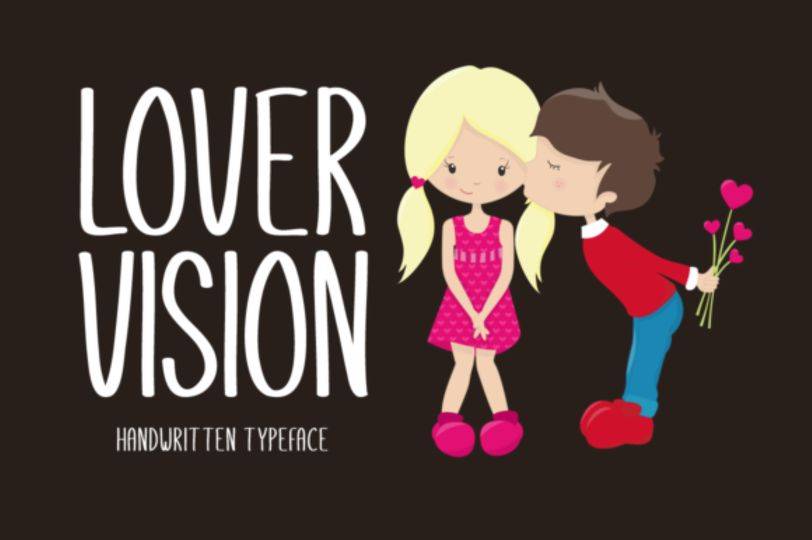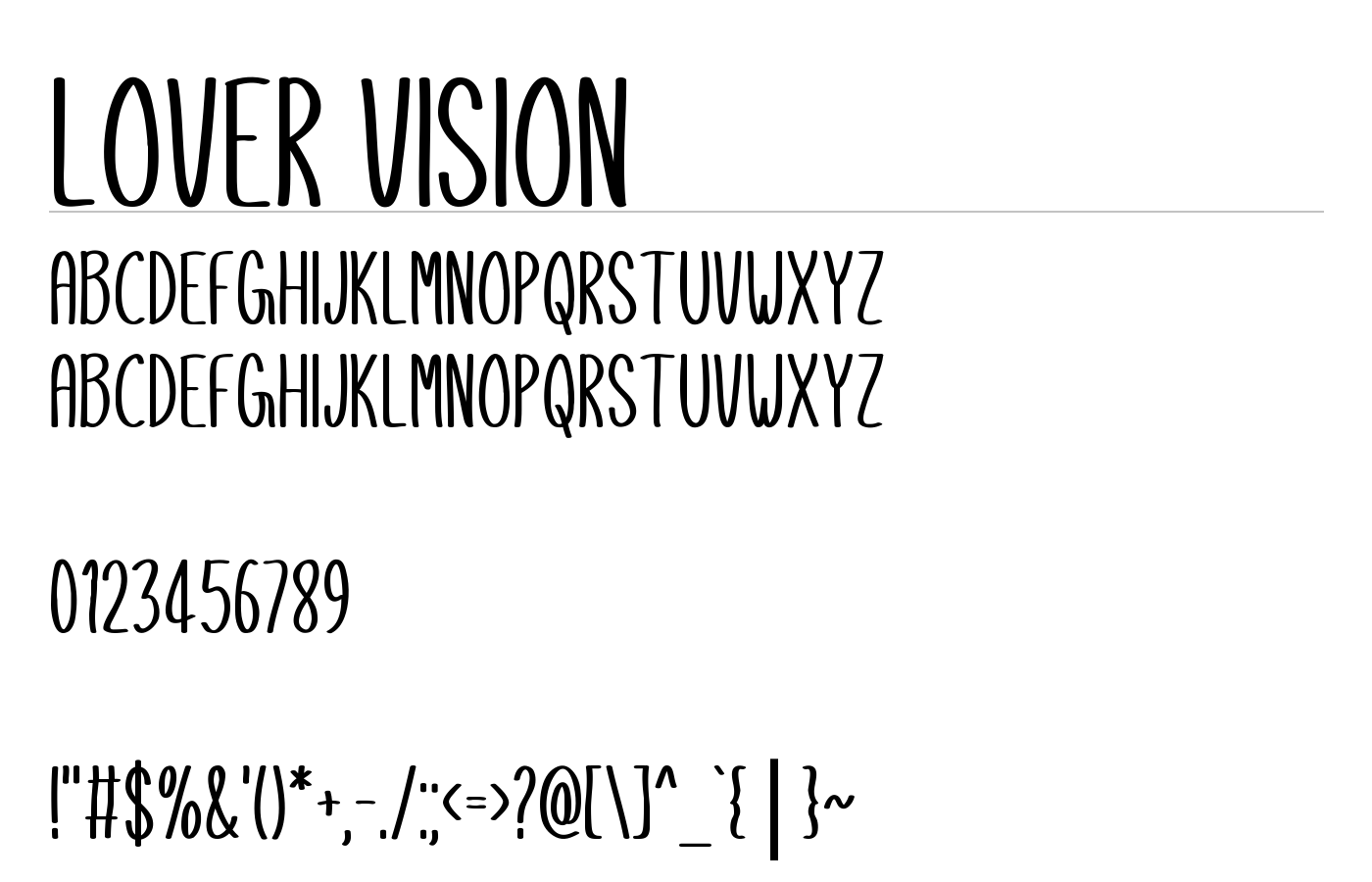
Lover Vision is a narrow, tall sans serif font with a playful and casual feel, characterized by its hand-drawn, slightly irregular letterforms. Its thin strokes and high x-height lend it a light and airy appearance ideal for creative, informal uses such as invitations, posters, or branding that aims to convey friendliness and approachability. This font works best in headlines or short text where its unique personality can stand out without losing legibility.
Lover Vision Font
About Lover Vision Font